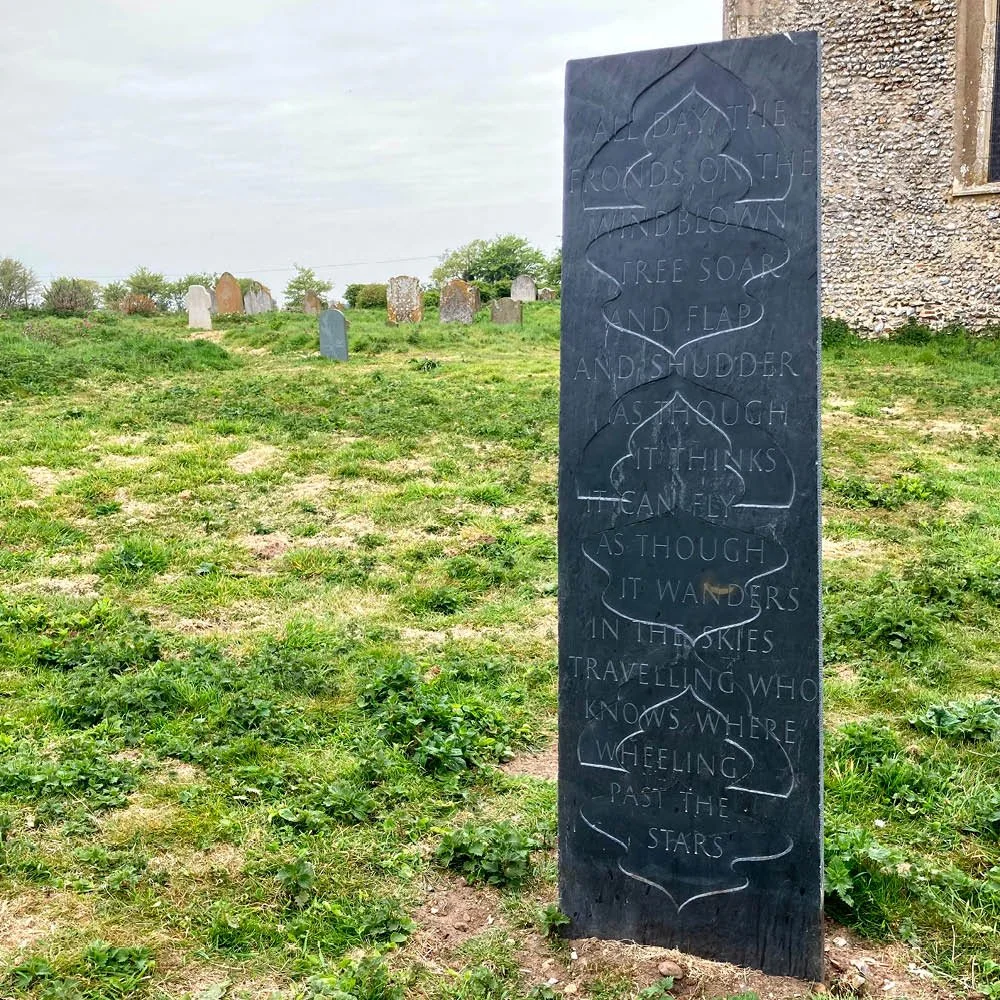
Lantern Headstone by John Das Gupta
Riven Welsh Slate
‘This stone is to my father, a Bengali, who died in 1959 in Darjeeling and was cremated there in the customary manner. I felt the design should strongly reflect his Indian origins, yet take some account of the memorial traditions here in the UK. One side carries the biographical facts and shows a lantern motif containing a tiny flame. The other side is a more complex arrangement of English and Bengali: short passages from poems by Rabindranath Tagore, whose work is still loved throughout Bengal. These combined texts overlay an abstract pattern, itself a play on image and ground.’